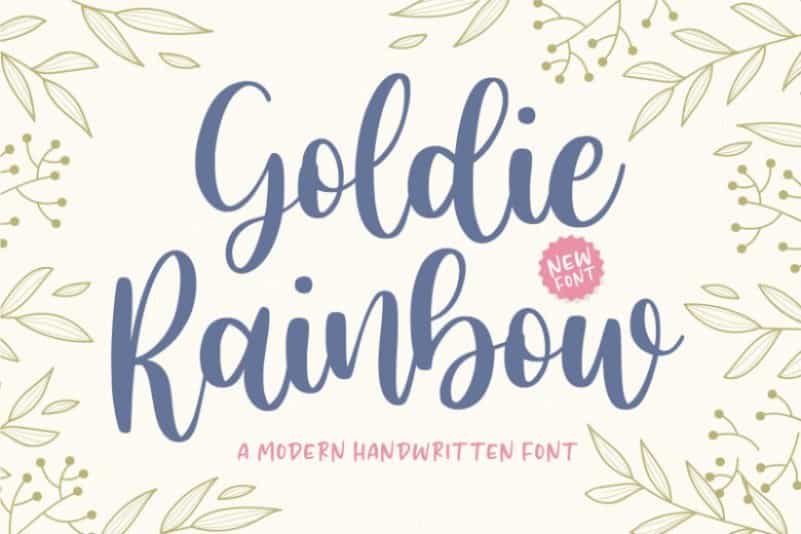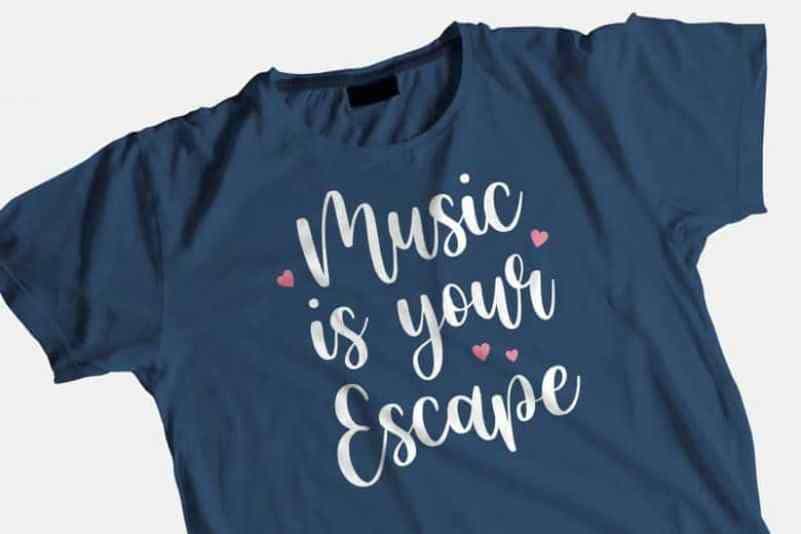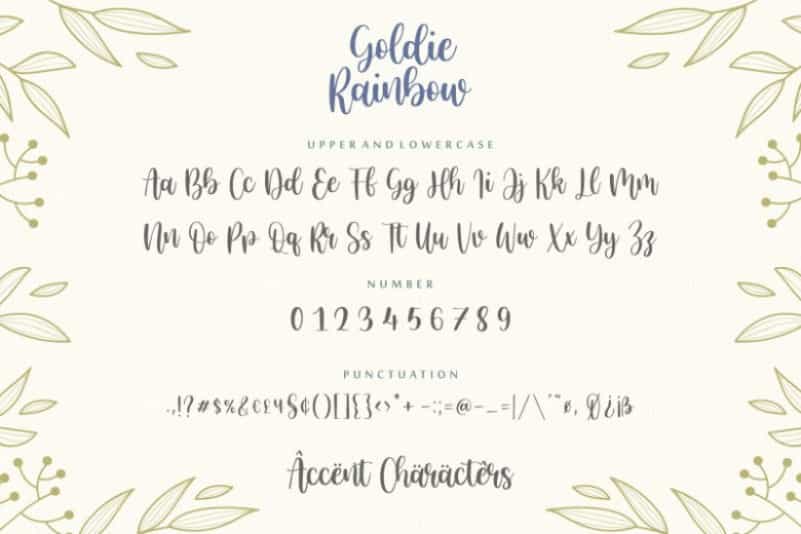
Discover Goldie Rainbow Font, part of the Handwritten Script collection—a versatile and unique font perfect for adding a personal touch to your projects. Download it for free and enjoy crafting designs with style, from invitations to social media posts. This font is available exclusively for personal use, giving you the freedom to create without limits. Unlock your creativity with Goldie Rainbow Font today!
Goldie Rainbow is a modern handwritten Font, It is great for packaging as well as branding projects, magazines social media, wedding or to simply convey words above the background. The font comes with TTF, Goldie Rainbow also has support for multilingual languages.